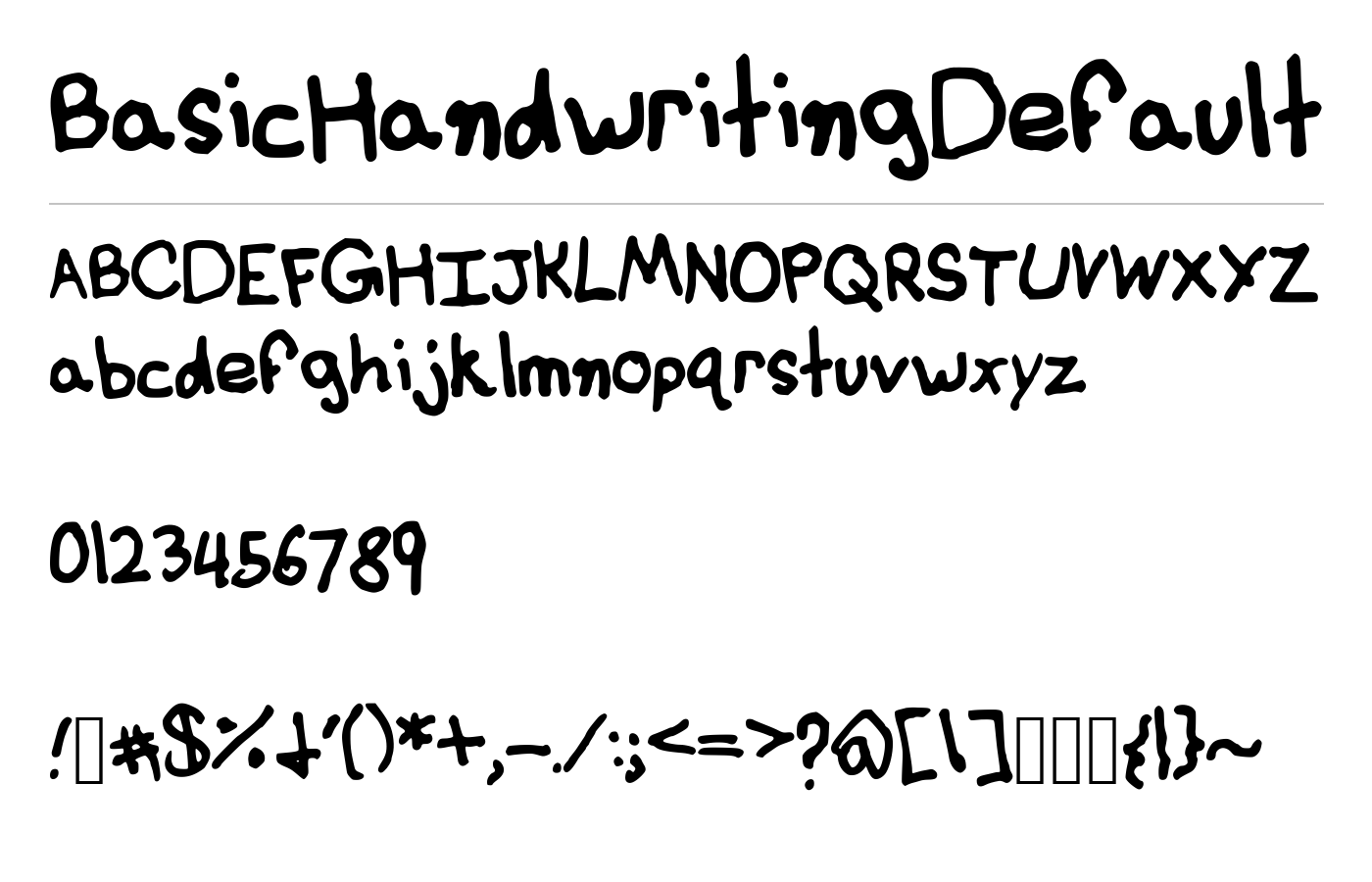
BasicHandwritingDefault is a playful, casual handwritten font with uneven strokes and lively character shapes that mimic natural penmanship. Its irregular letterforms and friendly style make it ideal for informal designs, children's materials, and creative projects that seek a warm, personal touch. This font works best in headlines, invitations, and packaging where a fun and approachable vibe is desired.
BasicHandwritingDefault Font
About BasicHandwritingDefault Font